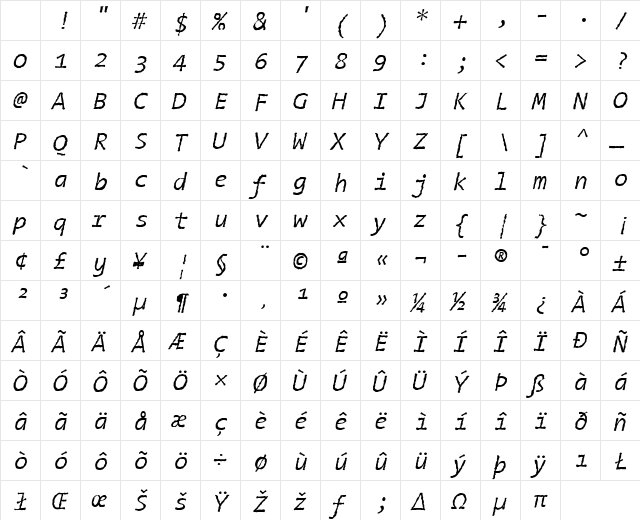
Complete The Sans Typewriter- Italic glyph index. Displaying only characters natively supported by The Sans Typewriter- Italic font.
The Sans Typewriter- uses fixed-width spacing throughout, giving it the structured, systematic character associated with coding environments and technical documentation. The slanted form adds forward momentum and visual energy.
Who designed the The Sans Typewriter- Italic font?